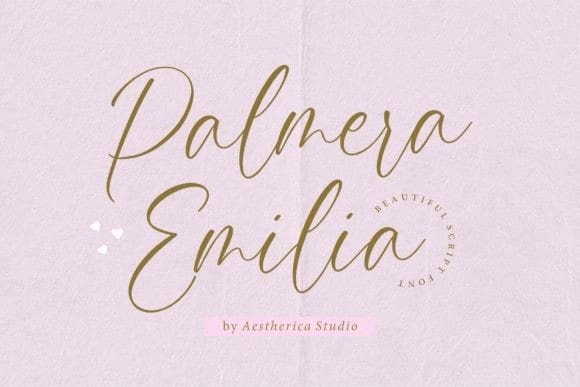
Palmera Emilia Font
Palmera Emilia Font is perfect for product packaging, branding project, megazine, social media, weddings, or just used to express words above the background.